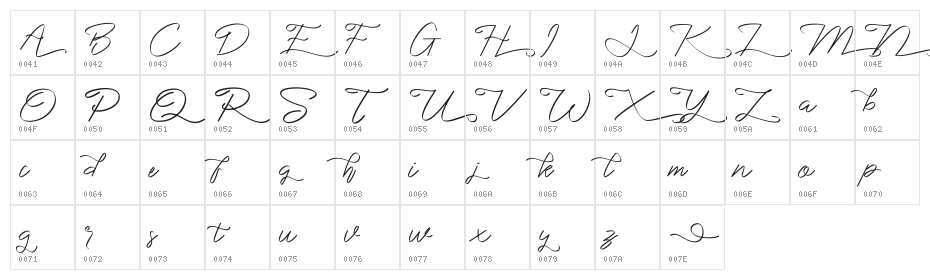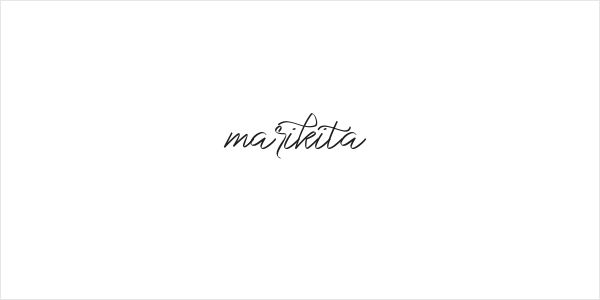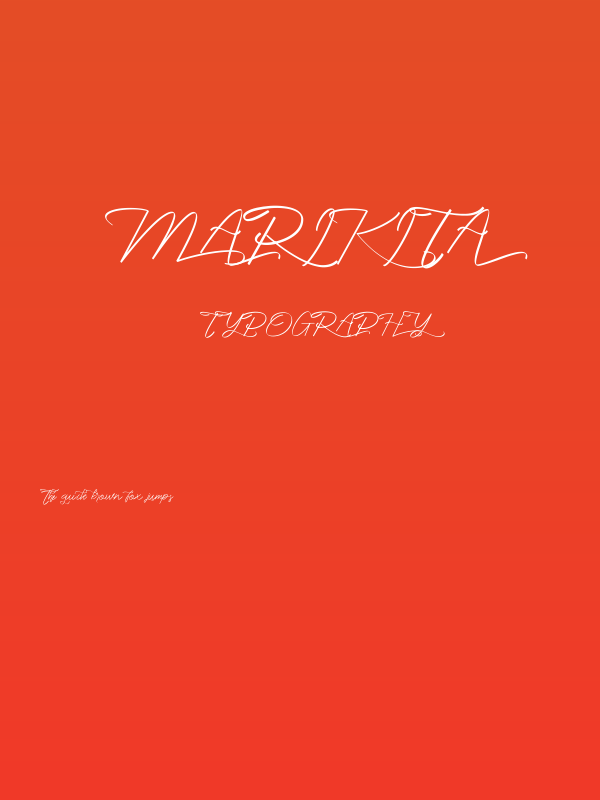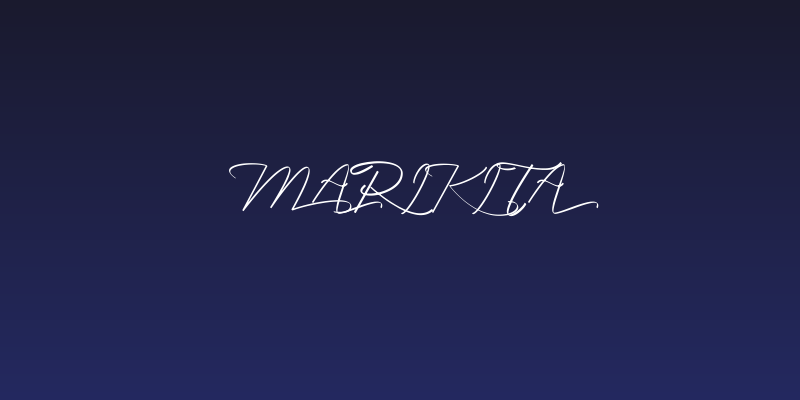
marikita Font
marikita Description
This font features an elegant and flowing script style, characterized by its intricate and decorative letterforms. The uppercase letters are particularly ornate, with elaborate swirls and loops that give a sense of sophistication and grace. The lowercase letters maintain a consistent style, with smooth, connected strokes that enhance readability while preserving the decorative nature. The font's overall appearance is reminiscent of classic calligraphy, making it suitable for formal and artistic applications. Its unique style is both eye-catching and refined, offering a touch of elegance to any design.
| Use Case | Logos, Invitations, Artistic designs |
| Proposed Projects | Ideal for wedding invitations, elegant branding, artistic posters, and formal event materials. |